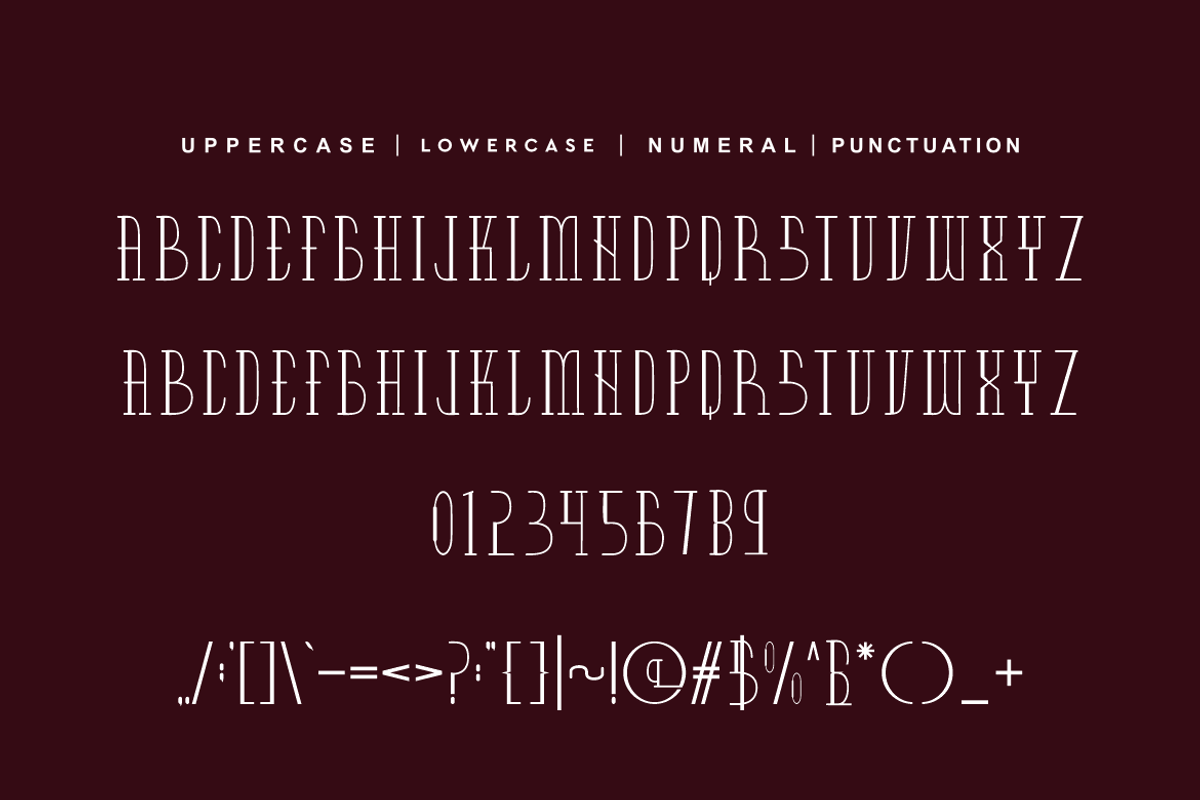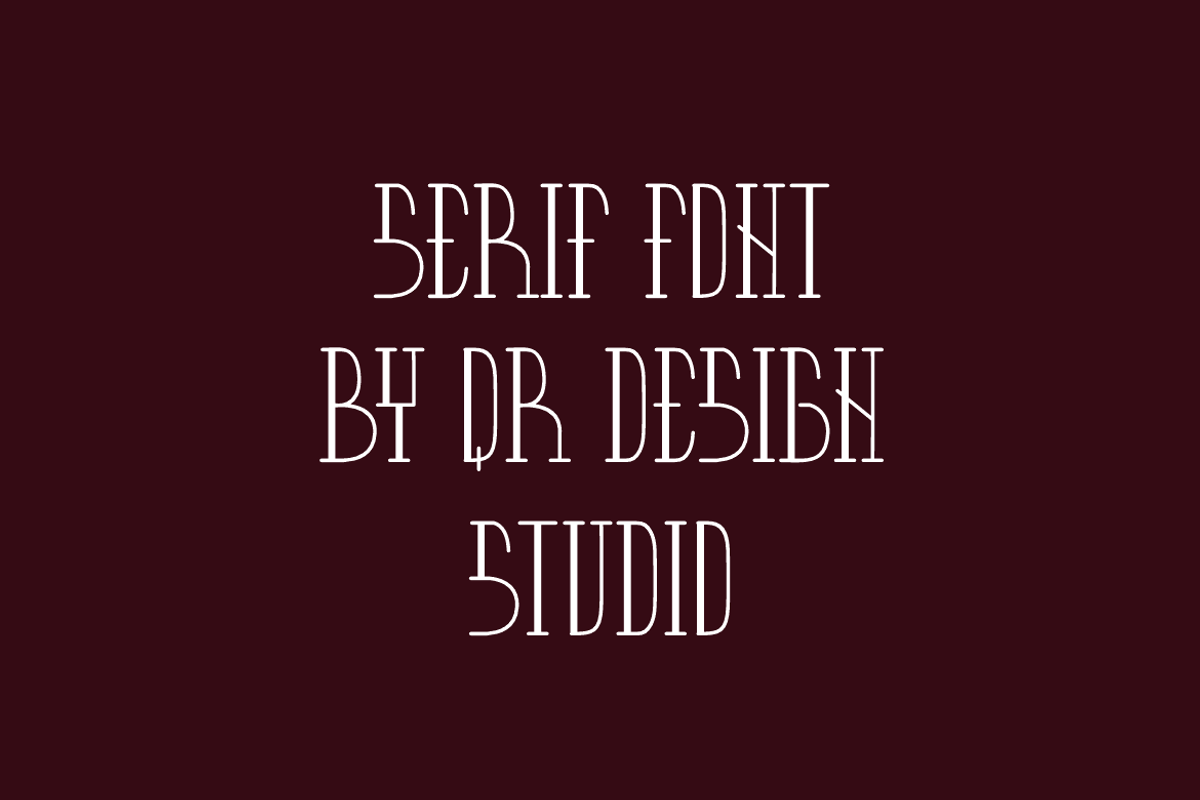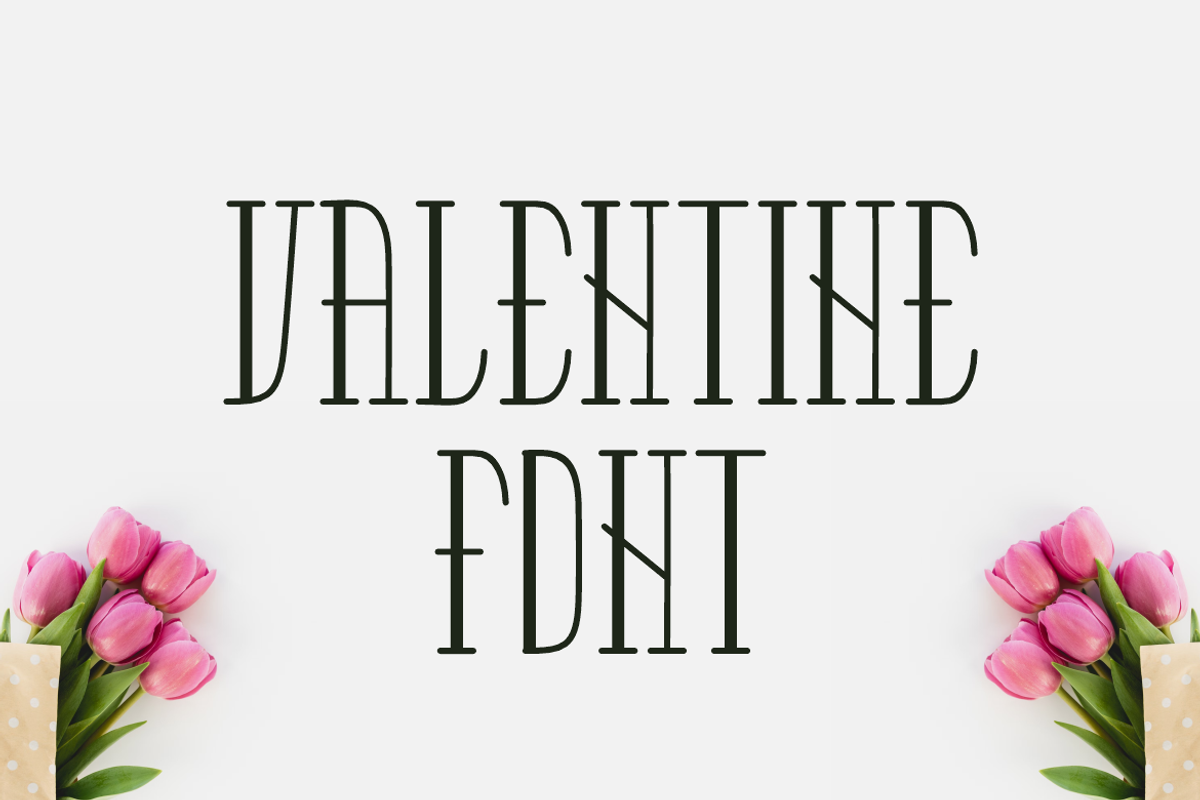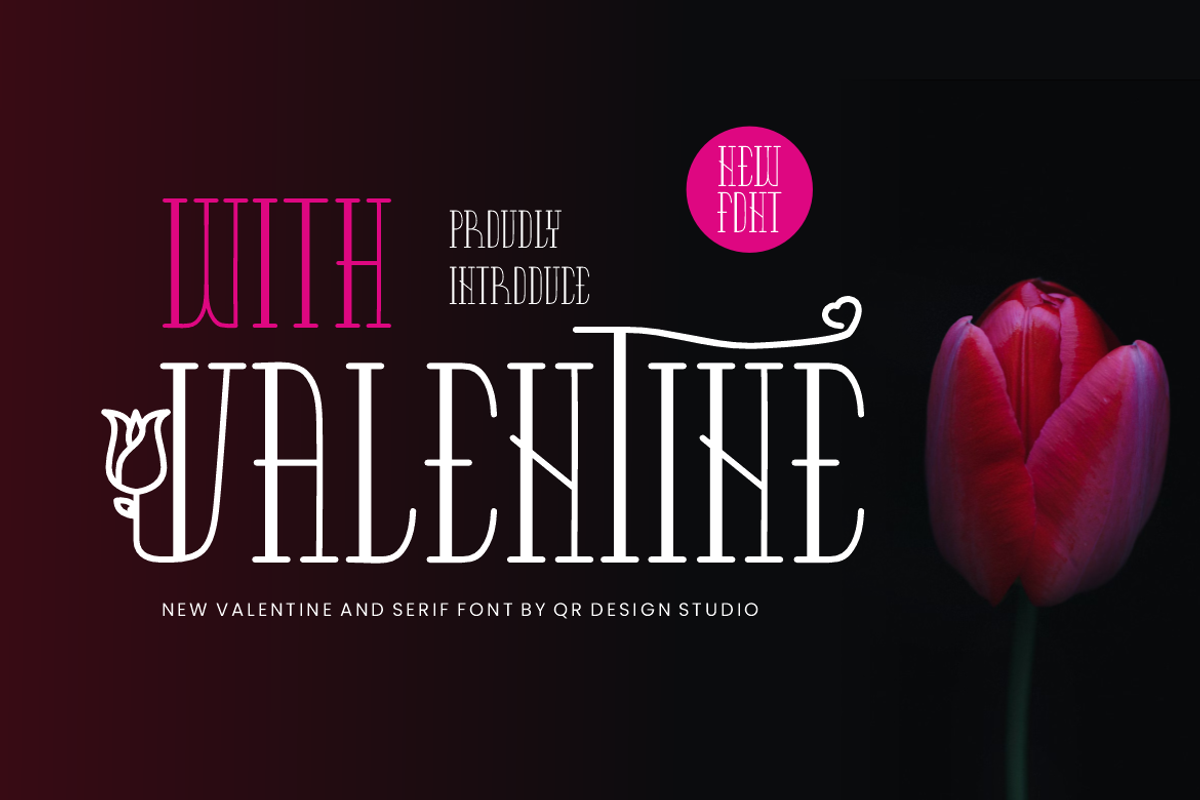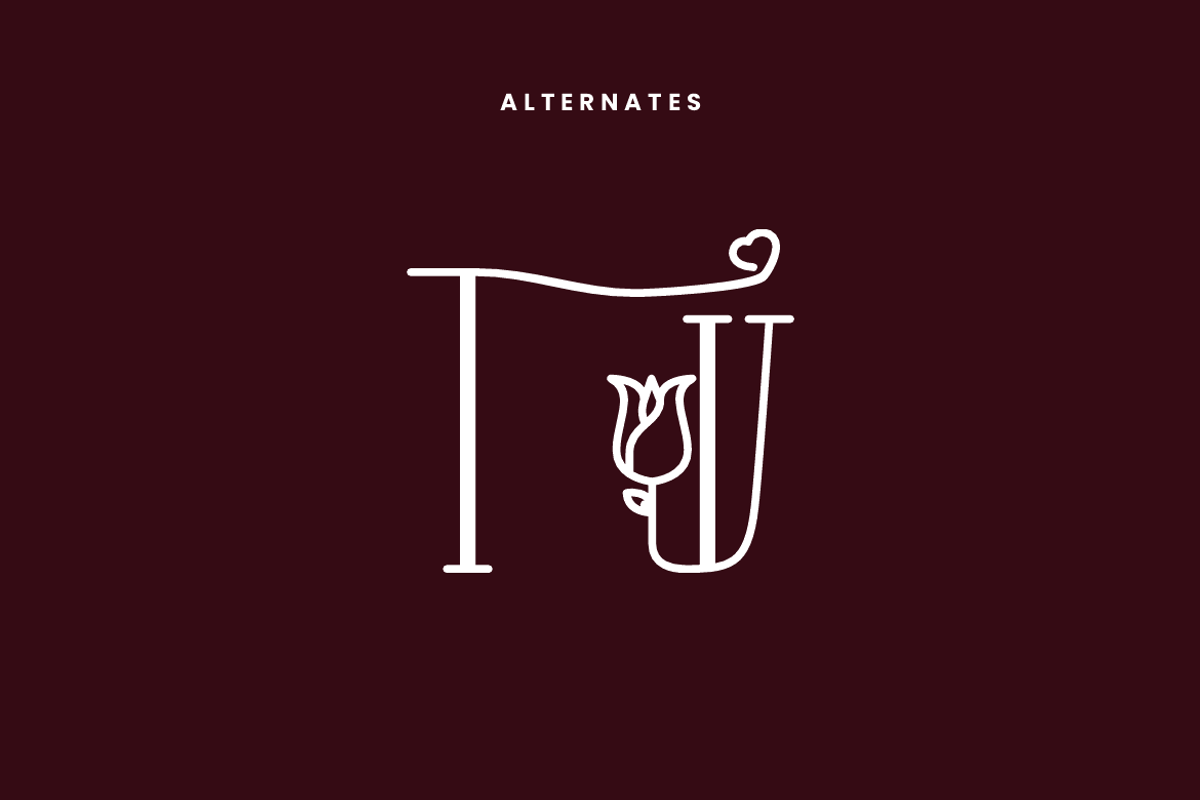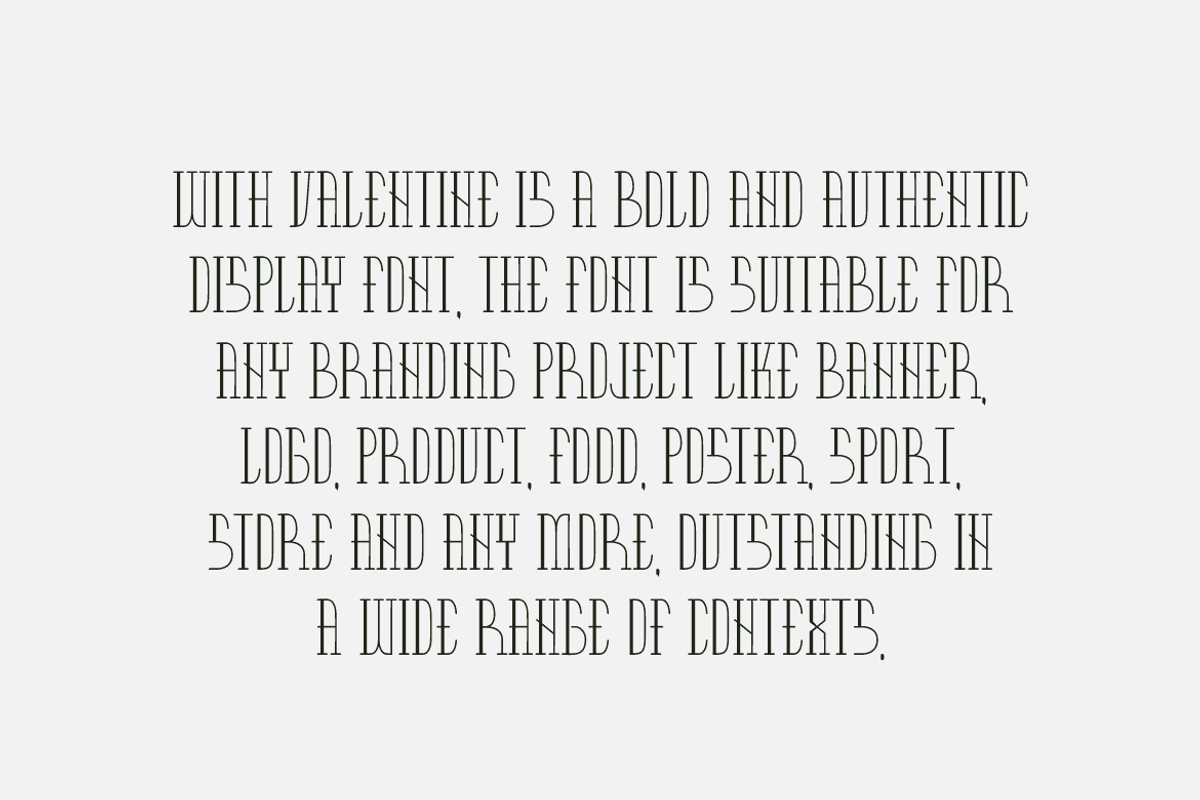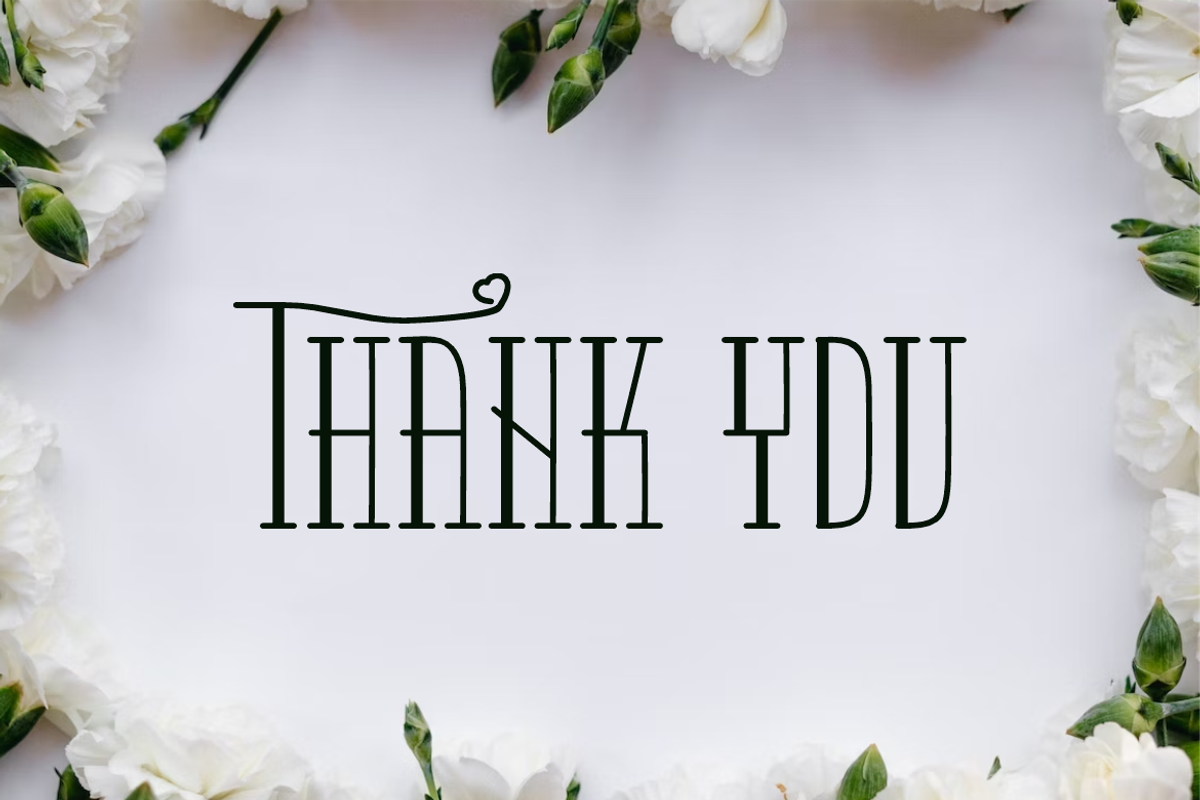
With Valentine Font
With Valentine Font is a serif and authentic display font. The font is suitable for any branding project like valentine, poster, logo, sport, and many more. Outstanding in a wide range of contexts.